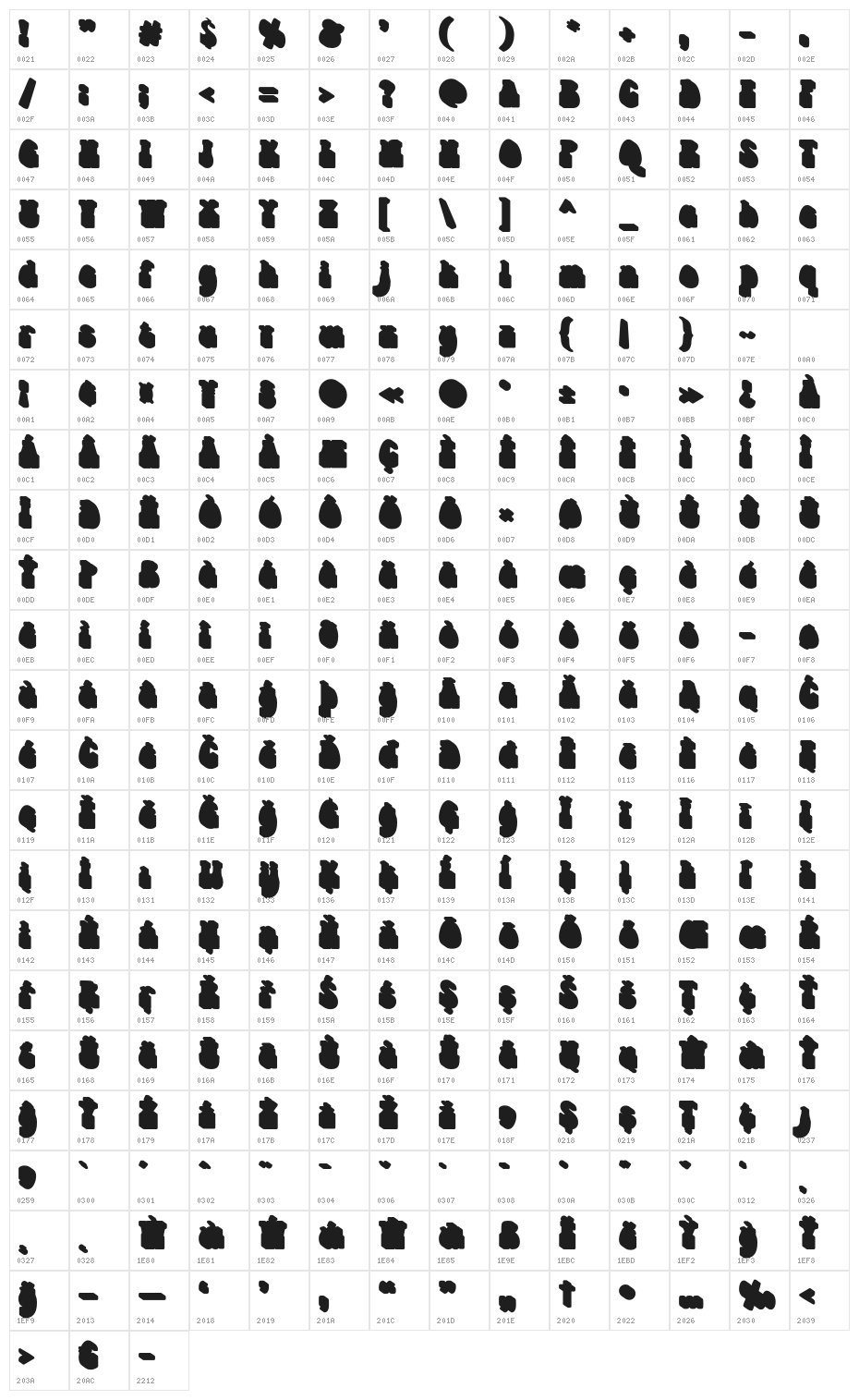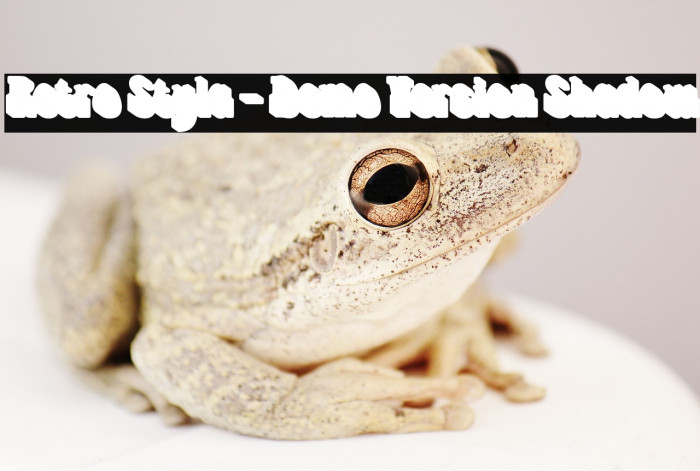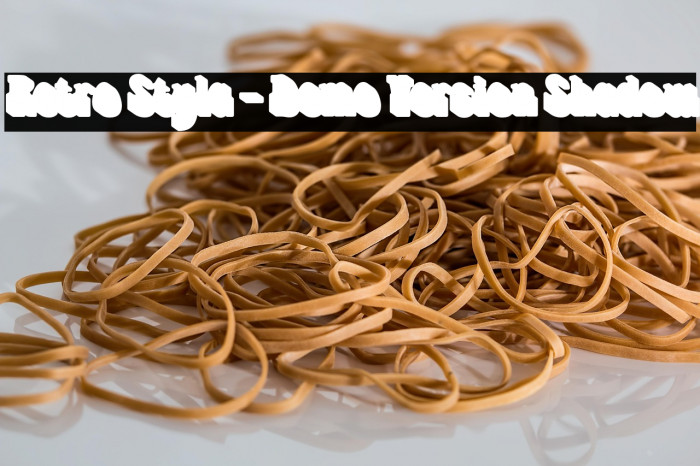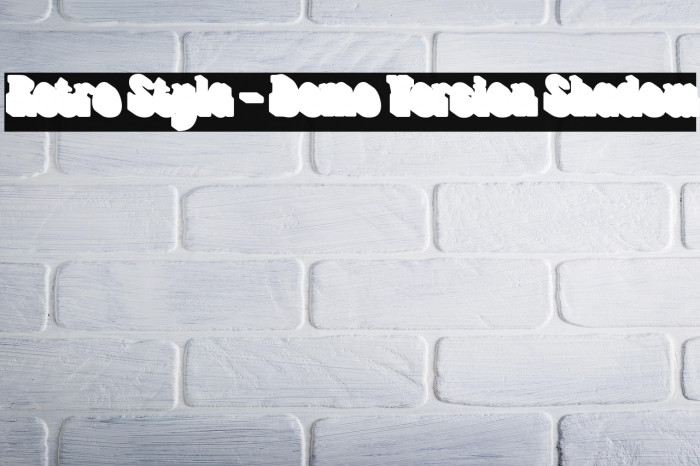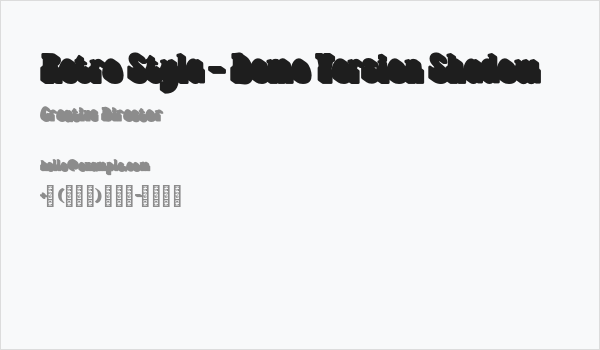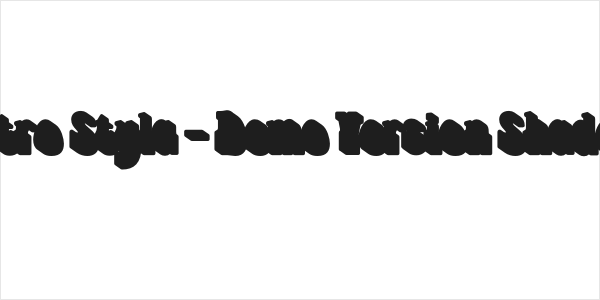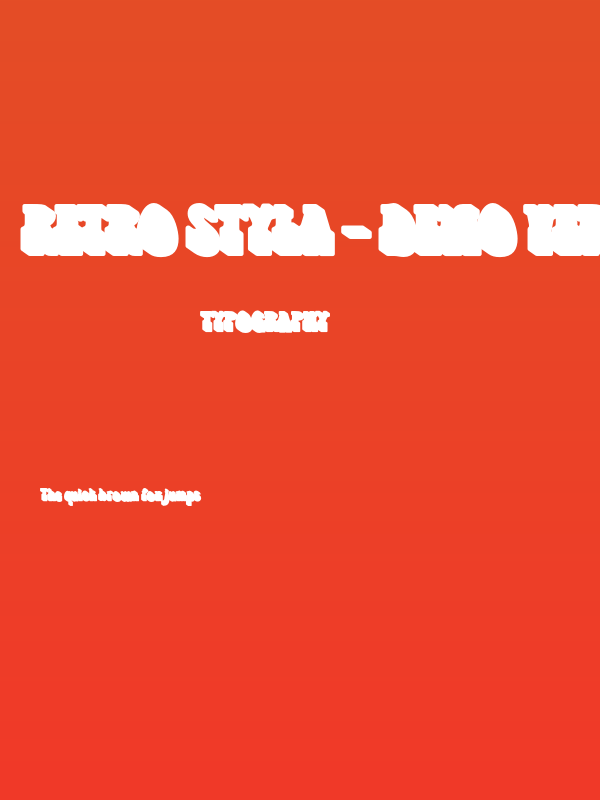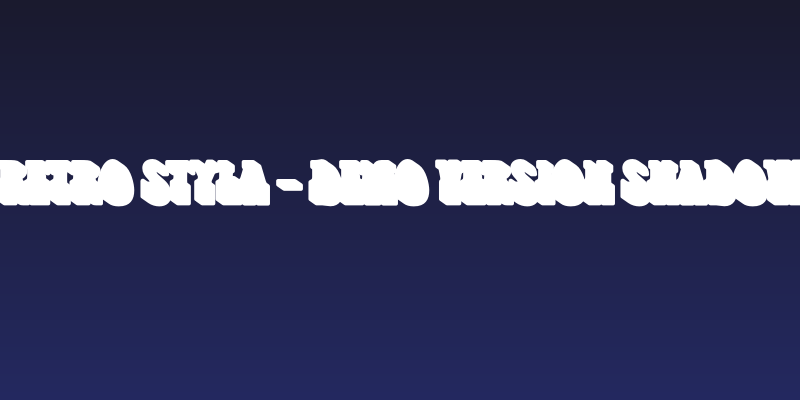
Retro Styla - Demo Version Shadow Font
Retro Styla - Demo Version Shadow Description
This font features a bold and playful design with a distinct retro vibe. The characters are heavily stylized with thick, rounded edges and a shadow effect that gives them a three-dimensional appearance. The uppercase and lowercase letters maintain a consistent style, with exaggerated curves and a sense of movement. The numbers and special characters are equally bold, fitting seamlessly into the overall aesthetic. This font's unique style makes it stand out, capturing attention with its vintage charm and modern twist.
| Overall Style | Retro, Playful |
| Use Case | Headlines, Posters, Branding |
| Proposed Projects | Ideal for vintage-themed posters, retro branding, playful advertisements, and eye-catching headlines. |